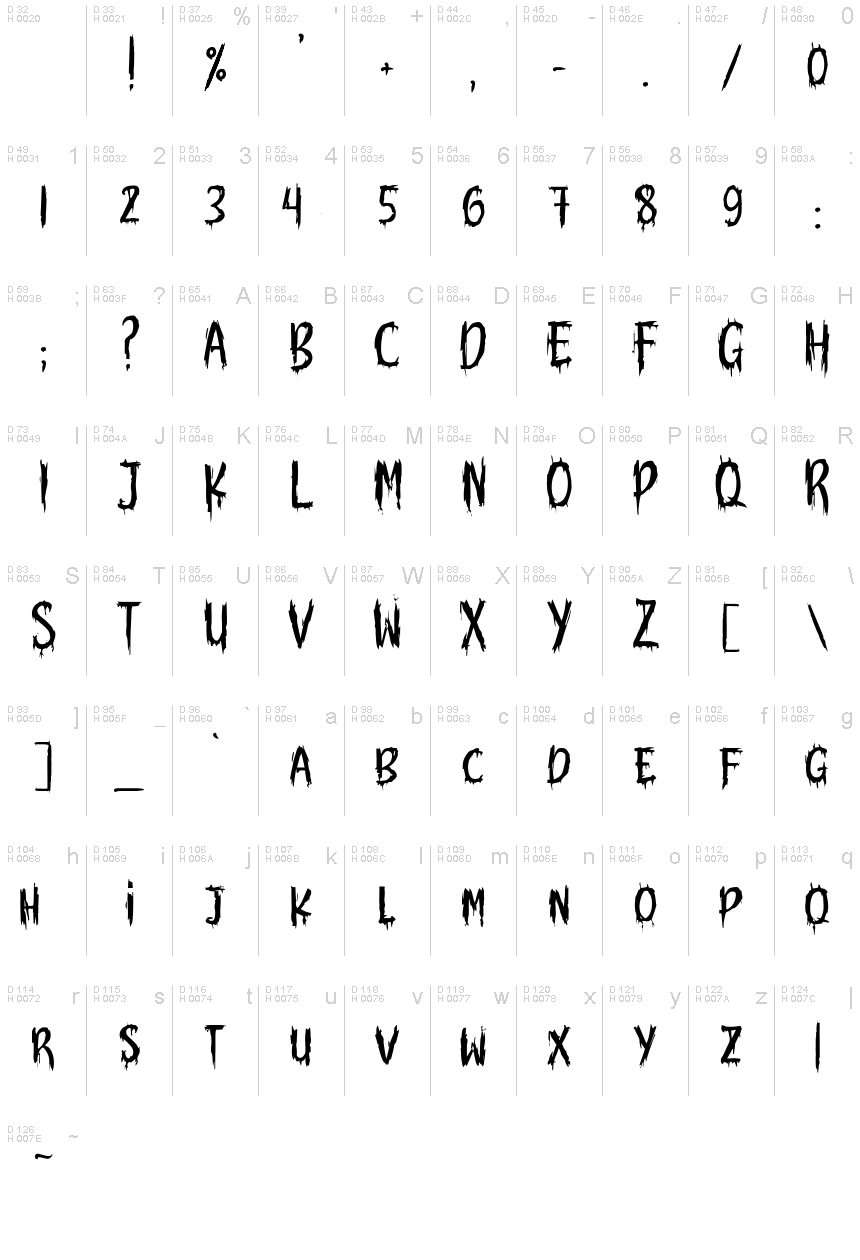
The Screaming
The Screaming is a captivating display font that exudes a sense of sheer terror. Crafted by the enigmatic designer Cat.B, this font embodies the essence of the macabre, with each letter twisted and contorted into a chilling feral shape. The irregular, jagged strokes and the menacing, dripping appearance evoke a primal, visceral response, inviting the viewer to experience the font's raw, unrestrained power.
This font's versatility extends beyond the realm of horror-themed projects, making it a compelling choice for bold, attention-grabbing designs in various contexts, from heavy metal album covers to edgy fashion branding. Its striking visual impact ensures that The Screaming will command the viewer's attention, leaving a lasting impression in any application where a sense of trepidation and intensity is desired.